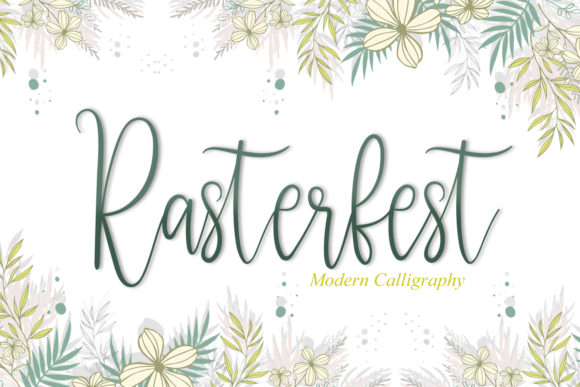
Journey into the realm of beauty and elegance with Rasterfest Font, the mesmerizing script font that will transform your designs into breathtaking works of art. Crafted with passion by niyos.studio, Rasterfest exudes a romantic spirit that will ignite your creativity and leave your audience spellbound.
Indulge in the allure of Rasterfest's flowing curves and graceful strokes, reminiscent of a handwritten masterpiece. Its varying baseline and smooth lines create a dynamic rhythm that adds depth and intrigue to your words. Each glyph is meticulously designed to capture the essence of handwritten charm, while stunning alternates provide endless possibilities for customization.
Unleash the captivating beauty of Rasterfest on your wedding invitations and thank you cards, where its romantic aura will create a lasting impression. Transform your quotes and greeting cards into heartfelt expressions of love and friendship. Elevate your logos and business cards with a touch of sophistication that will set you apart from the crowd.
With Rasterfest, every design becomes a captivating story, inviting your audience to immerse themselves in the magic of your words. Let Rasterfest be your muse, guiding you to create designs that resonate with emotion and leave an unforgettable mark on the hearts of your readers.